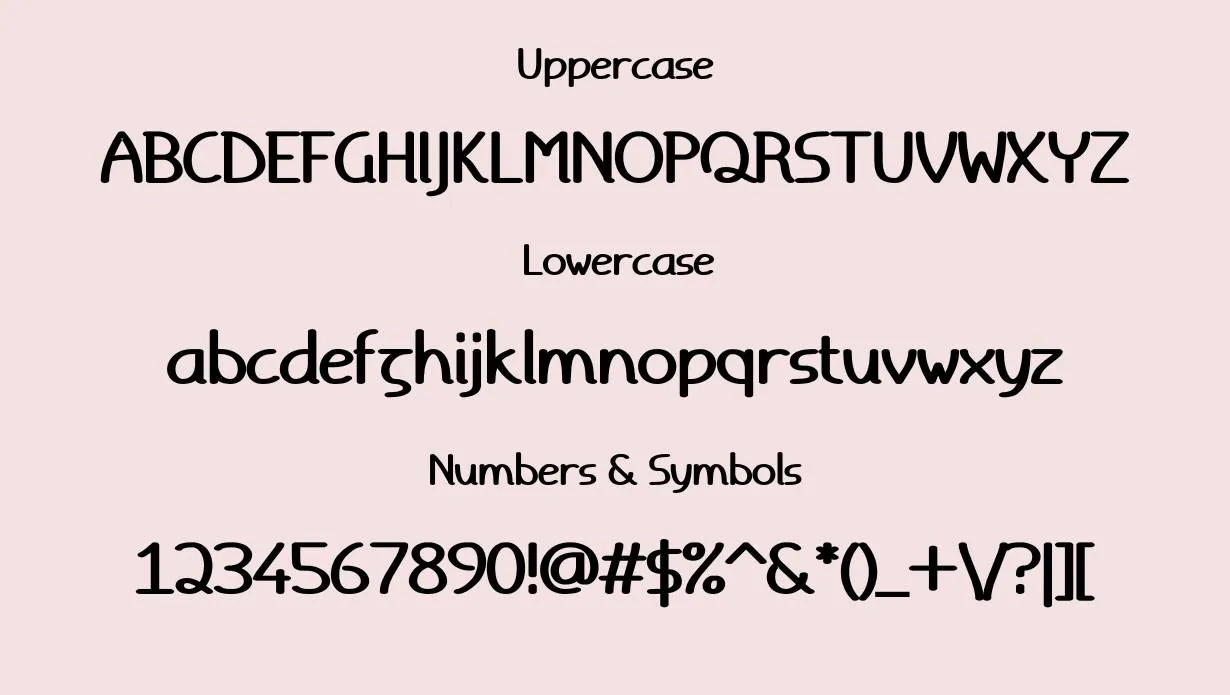
Torid Font is a typeface with a bold and impactful design. It’s commonly used in advertising, headlines, and graphic design where designers want to create a strong visual statement.
The font’s commanding letterforms add an element of impact and memorability to your design work. The pairing of this typeface with the opens up opportunities to craft exceptional displays.
| Name | Torid Font |
| Designer | Ruben Holthuijsen |
| Style | Sans serif |